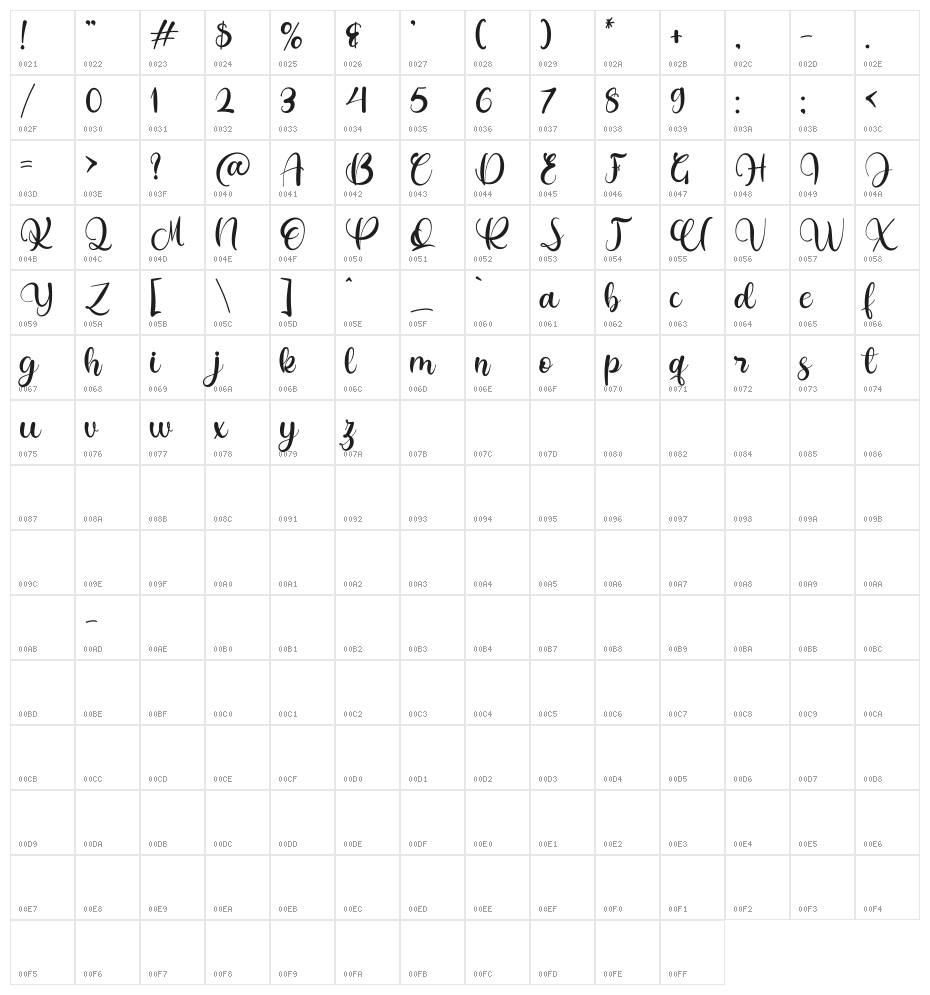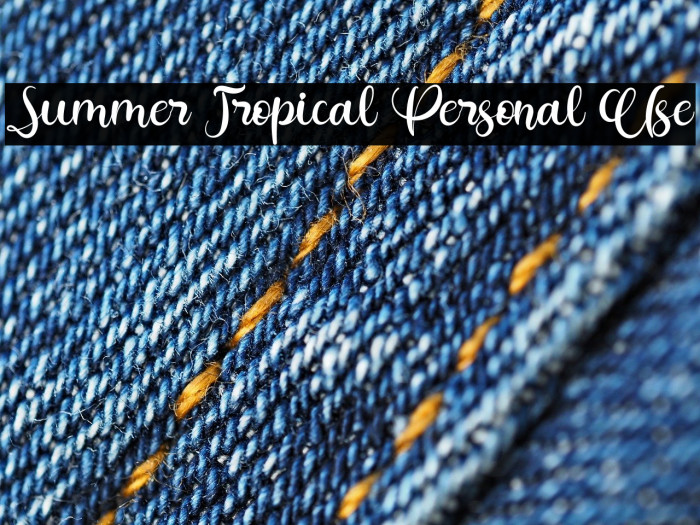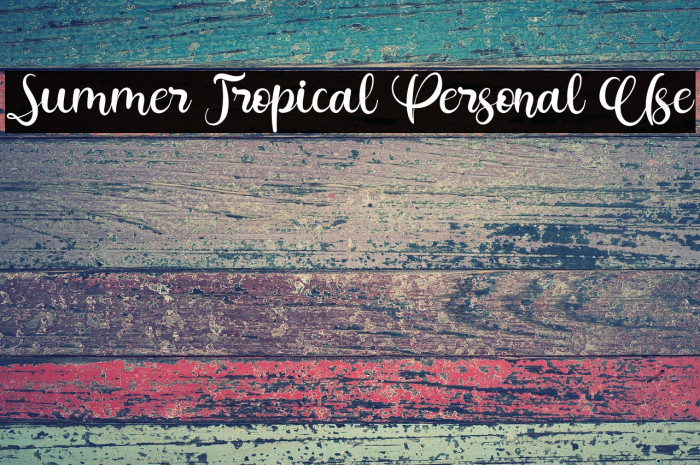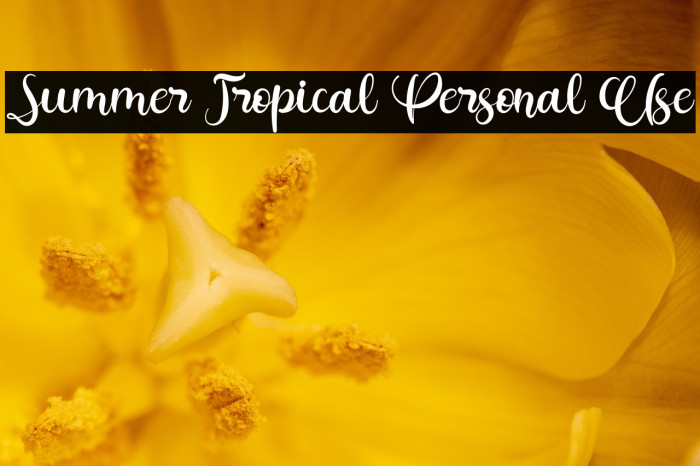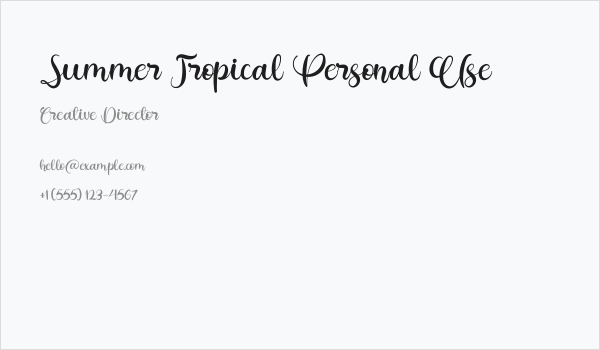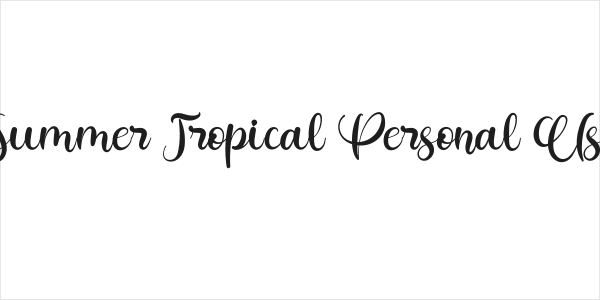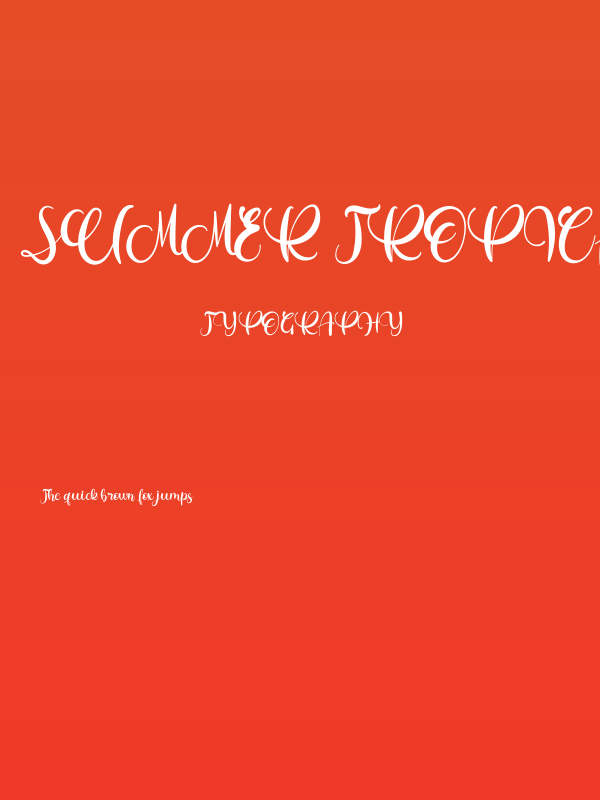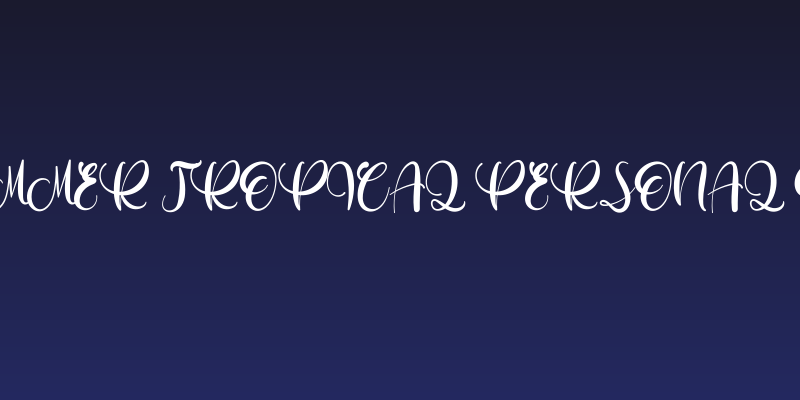
Summer Tropical Personal Use Font
Summer Tropical Personal Use Description
This font exudes a lively and playful character, with its flowing, cursive style that mimics the fluidity of handwriting. The uppercase letters are elegantly looped and connected, while the lowercase letters maintain a consistent, smooth flow. The numerals are bold and slightly rounded, adding to the font's approachable and friendly appearance. Special characters are creatively designed, maintaining the overall whimsical theme. This font is ideal for projects that require a personal touch, such as invitations, greeting cards, or branding materials that aim to convey warmth and creativity.
| Proposed Projects | Ideal for invitations, greeting cards, and creative branding materials. |